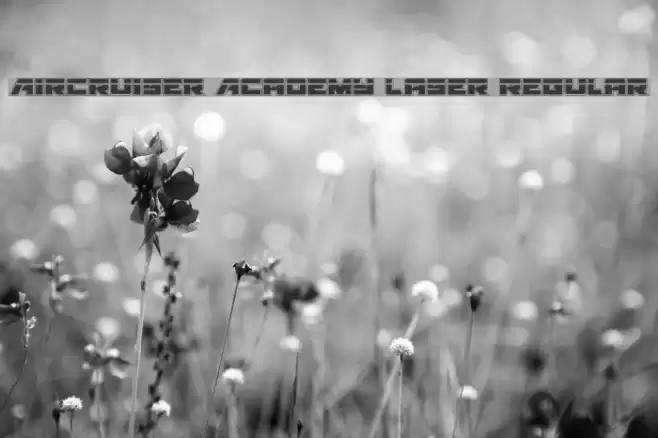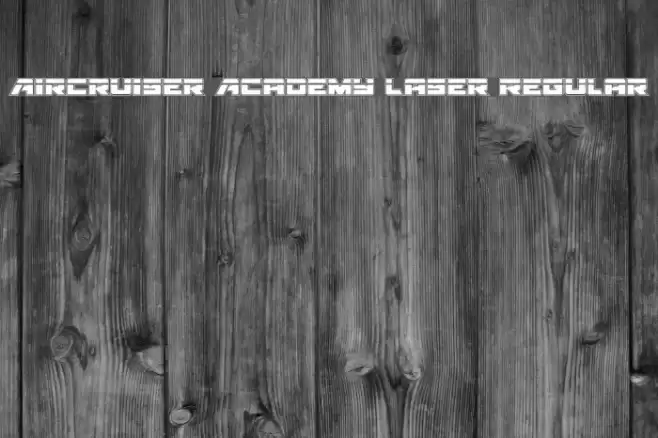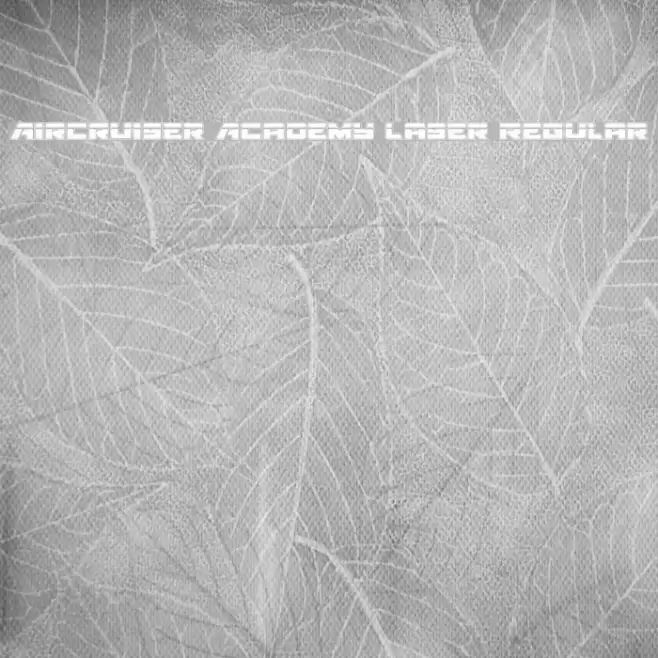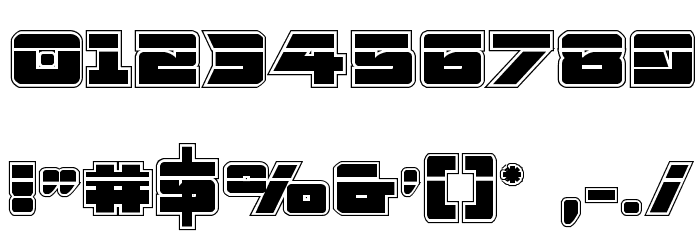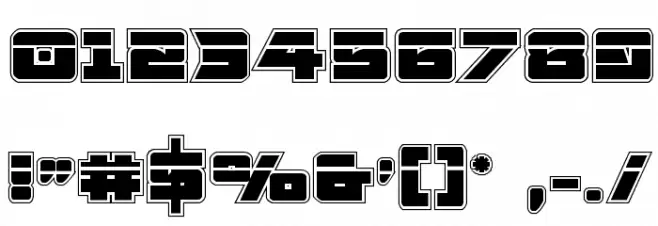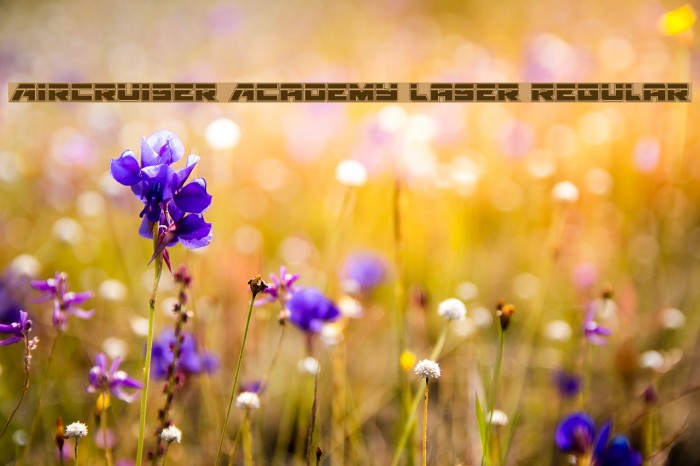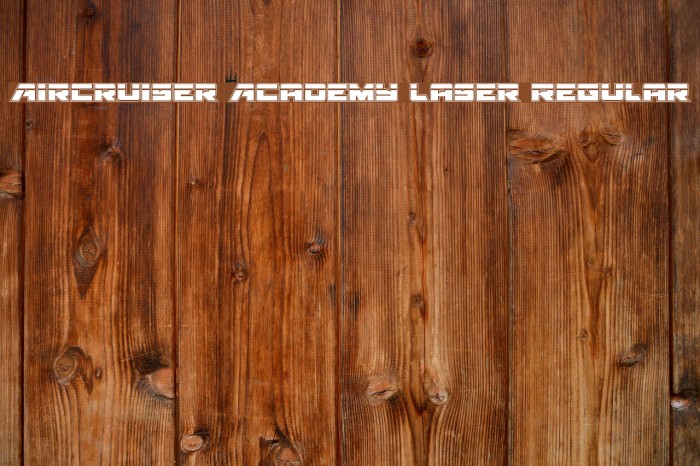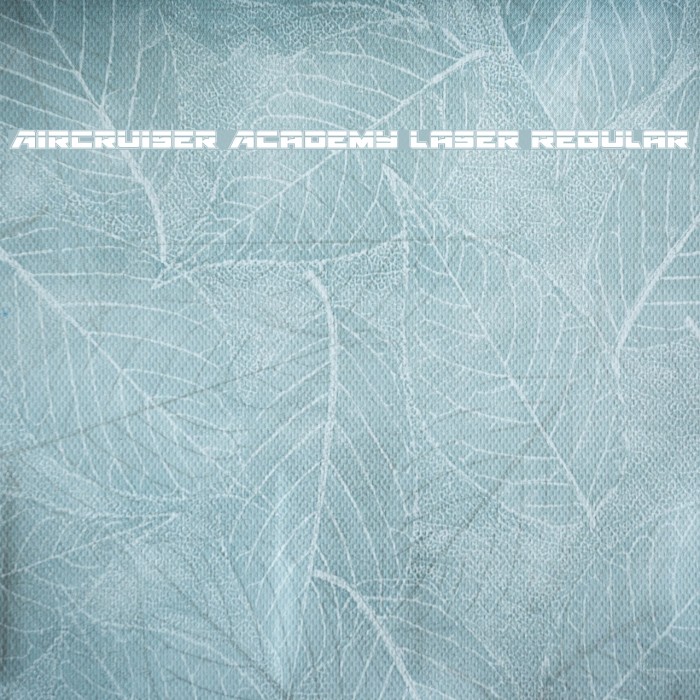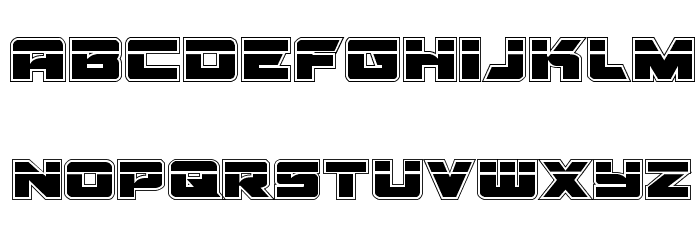
Aircruiser Academy Laser Regular Font
Aircruiser Academy Laser Regular Description
This font features a bold, futuristic design with a strong geometric structure. Each character is outlined, creating a striking contrast between the solid inner form and the surrounding space. The uppercase letters are angular and dynamic, with sharp edges and a sense of movement. The lowercase letters maintain the same boldness and geometric style, ensuring consistency across the typeface. Numbers and special characters are designed to match the overall aesthetic, making this font versatile for various applications. Its unique style is perfect for projects that require a modern and impactful look.
A bold, futuristic font with geometric outlines and strong visual impact from Uncategorized fonts.
- Proposed Projects: Ideal for sci-fi themed designs, video game titles, posters, and branding that requires a modern edge.